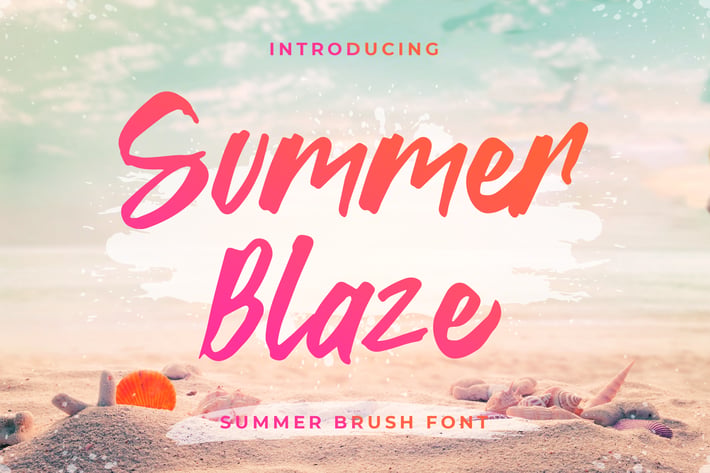
Summer Blaze – Summer Brush Font
Summer Blaze is a beachy and dreamy script that radiates summer and positivity.
Use it to add a relaxed vibe to any design project.